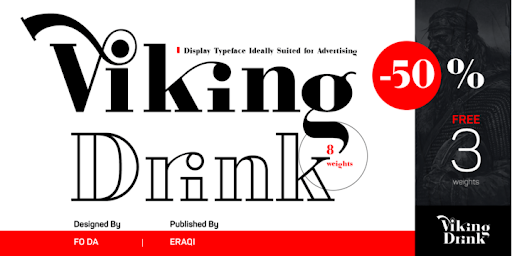
Download Now Server 1 Download Now Server 3 Download Now Server 2 A modern Sans Serif — prosaic, designed geometrically, beautiful in large sizes All the dimensions of the font are based on Factor 10. The general principle of construction leads to slim forms and nearly equally wide characters. So the font appears very solid but is actually difficult to decipher in longer texts. Along with the ”normal“ Guhly Regular there are also the two versions Guhly Light and Guhly Bold, whereas in each only the vertical strokes [Guhly Light] or horizontal [Guhly Bold] have been changed in strength. The result is a very individual decorative effect which slightly reflects old circus and western scripts. The lower case characters in the version Guhly Book are, therefore, optimized to be suitable for longer texts in smaller font sizes — because after all, sometime...
Download Now Server 1 Download Now Server 3 Download Now Server 2 Semlor is a great display comic advertising big font , coming in regular and italic style. This font has multi-lingual and Cyrillic support. We hope you enjoy using this font. Download Semlor Font Family From Listener
Alaca
Download Now Server 1 Download Now Server 3 Download Now Server 2 Alaca typeface was designed, based on its octagonal form, as contemporary, dynamic and modern font family.  While designing Alaca typeface each glyph was given a form to link with other glyphs.  As such, the harmony between the letters was carried to an advanced level. Alaca font family consists of 6 weights and italics matching those weights. It can be used typographically as a logo, title and text font up to certain sizes. Download Alaca Font Family From Plasebo Studio
Download Now Server 1 Download Now Server 3 Download Now Server 2 Gros is a handwritten font with a raw texture and consisting of all uppercase letters. If you want the writing to stand out, bold, very bold, giving your design a very strong impression and attract attention, Gros is perfect for your design needs. Highlight your designs with Gros! Download Gros Font Family From Atom
Download Now Server 1 Download Now Server 3 Download Now Server 2 Flowa typeface is designed to make a difference in your work with its strong and contrasting stance that contain in itself soft and hard lines simultaneously. Flowa is suitable for branding, album cover designs, posters designs, packaging and editorial. It can be used for websites and digital media. It is an excellent choice for short sentences, big hero titles, unique logo fonts, in particular.  Download Flowa Font Family From Cihangir Öziş
Download Now Server 1 Download Now Server 3 Download Now Server 2 Looking for an awesome Valentine's Day font, wedding font or baby shower font for your advertising or love logo? Lovebeat is the perfect font to celebrate the important feelings of your heart in advertising and web design, packaging and poster design. Lovebeat lets your typography truly feel the heartbeats. The typeface contains a broad latin language support as well as extended numerals and fractions. Download Lovebeat Font Family From Anita Jürgeleit
Download Now Server 1 Download Now Server 3 Download Now Server 2 Amerio is a rough font that was made by Subectype Studio. It features a brush made feel and looks so fun. Every single letter has been naturally hand written, making this typeface unique. It was scanned and put together as a font. The font suits best for big headlines, logos, posters, book cover, quotes and much more. Download Amerio Font Family From Subectype
Download Now Server 1 Download Now Server 3 Download Now Server 2 Viking Drink is a display font derivative from serif family of eight weights ranging from Regular to Bold and matching Italics, which gives it a full range of expression and suitability for advertising, interfaces and corporate design. Viking Drink provides 3 FREE weights ( Regular, Italic and Bold ). It has 17 ligatures that add powerful effect when used for creating logos or headlines. It also supports many languages. Download Viking Drink Font Family From Fo Da
Download De Ruyter Font Family From Trafotype
Download Now Server 1 Download Now Server 3 Download Now Server 2 De Ruyter font was inspired by old and new. Old beautiful calligraphy and blackletter fonts used across the ages and new clean, simple sans-serif style fonts which may be use in many types of modern media. This typeface include 438 glyphs which cover 98% of Latin Plus languages and 94% of Latin Plus diacritics. De Ruyter include regular and italic version which will perfect works in any branding, logos, magazines, films projects, badges and headlines. The font is distributed in TrueType format including kerning. Download De Ruyter Font Family From Trafotype
Download Sagor Font Family From Cihangir Öziş
Download Now Server 1 Download Now Server 3 Download Now Server 2 Sagor, designed by Cihangir Öziş in 2019, is a modern font that adds a different flavour to your works with its cool look and unique details. Sagor is suitable for fashion, branding, packaging and editorial uses. It is an excellent choice for short sentences, big hero titles, unique logo fonts, in particular. It can also be used to add a new look to historic design structures. Sagor is particularly elegant and assertive, especially in lowercase letters. Features: Latin Basic Latin Western European South Eastern European Uppercase Lowercase Numbers - Decimal Digits Standart Punctuation Standart Ligatures Alternate for "a" Letter Symbols - Currency, Basic Math, Arrows Download Sagor Font Family From Cihangir Öziş